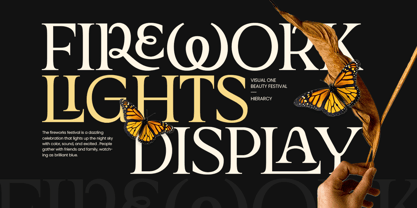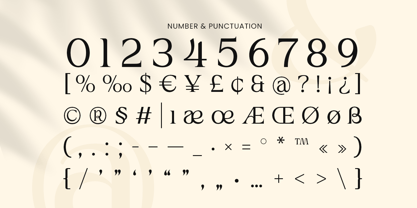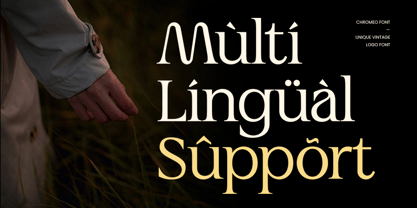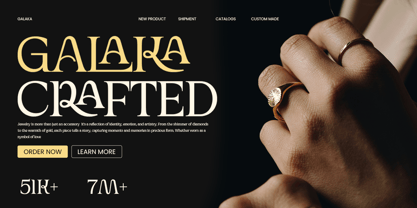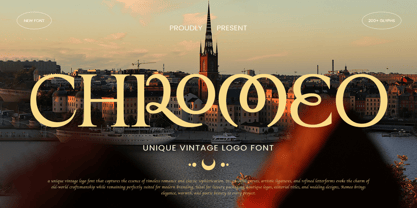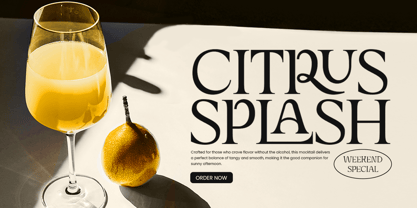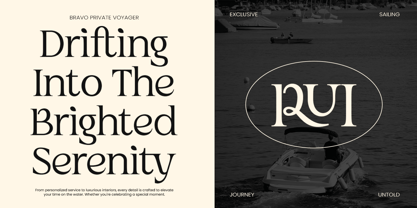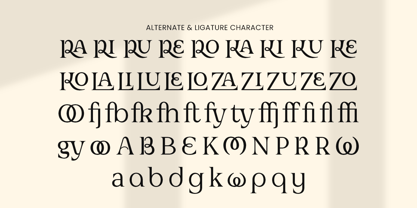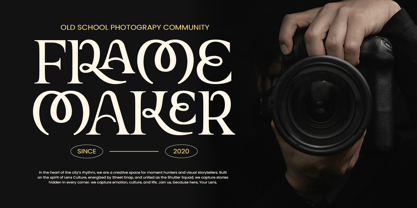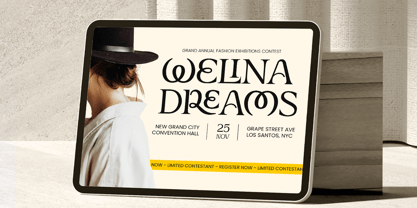
Romeo - Unique Vintage Logo Font
ROMEO is a unique vintage logo font crafted to bring classic character and nostalgic confidence to your typography. With distinctive letterforms and a timeless retro feel, this font delivers a strong identity that feels authentic, bold, and memorable—perfect for brands that want a heritage-inspired voice.
Designed for logo design and brand identity, ROMEO shines on packaging, labels, badges, posters, signage, and editorial headlines. Its vintage personality makes it ideal for barbershops, coffee brands, craft goods, streetwear, motorcycle themes, and rustic or retro-inspired product lines—while still staying clean and readable across modern layouts.
Whether you’re building a classic emblem, a retro logotype, or a bold headline system, ROMEO adds instant charm and confident storytelling to any project, in both digital and print applications.
ROMEO – Vintage Logo Font Features
Unique vintage-inspired letterforms with strong logo presence
Perfect for brand identity, badges, labels, and packaging
Ideal for retro logos, posters, signage, and headlines
Distinct character that stays readable and impactful
Includes uppercase, lowercase, numerals, and punctuation
Great for both digital branding and print production
OpenType features for polished typographic control
Make your branding feel timeless and unforgettable with ROMEO—built for vintage logo character. 🏷️✨